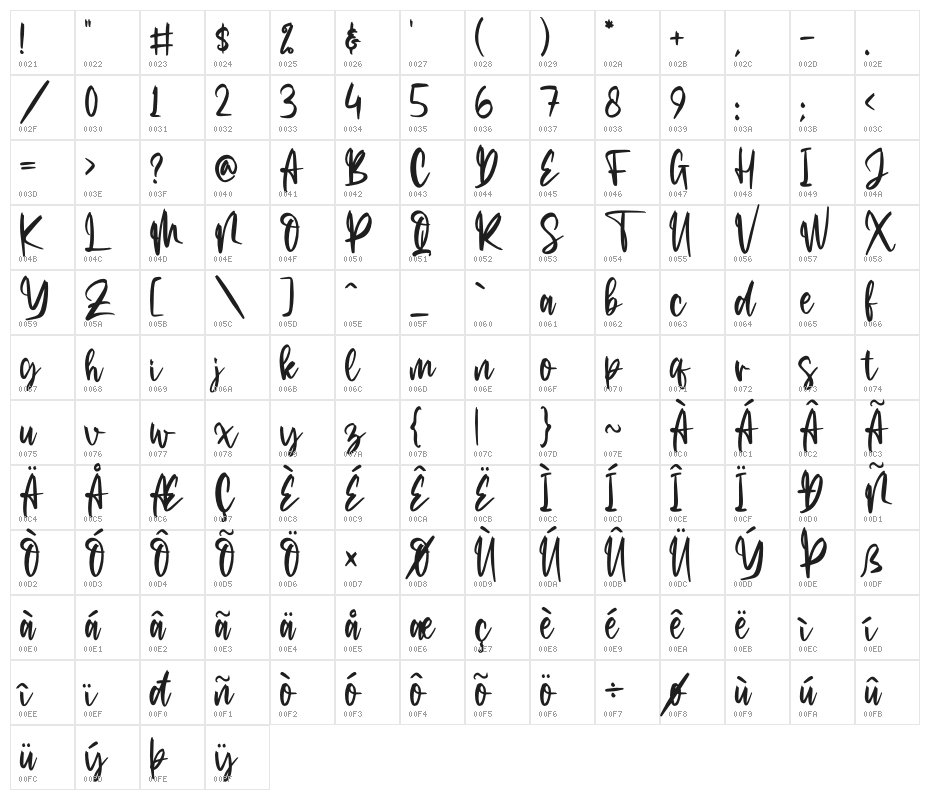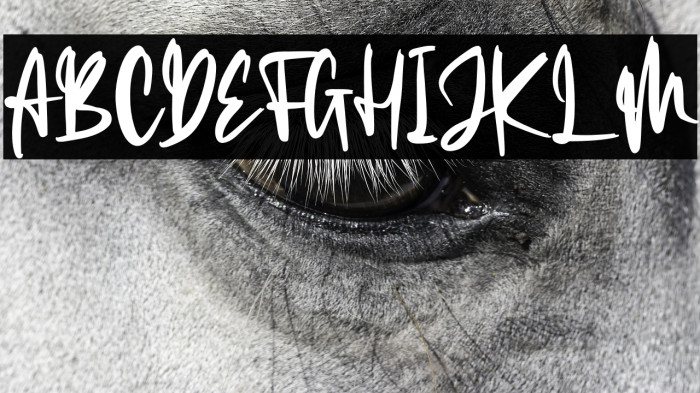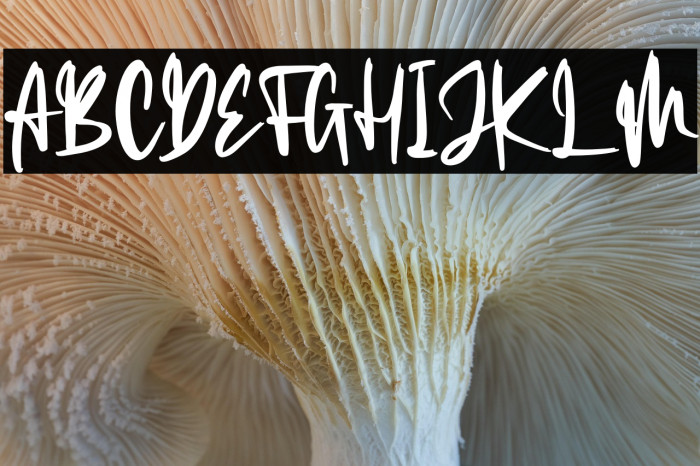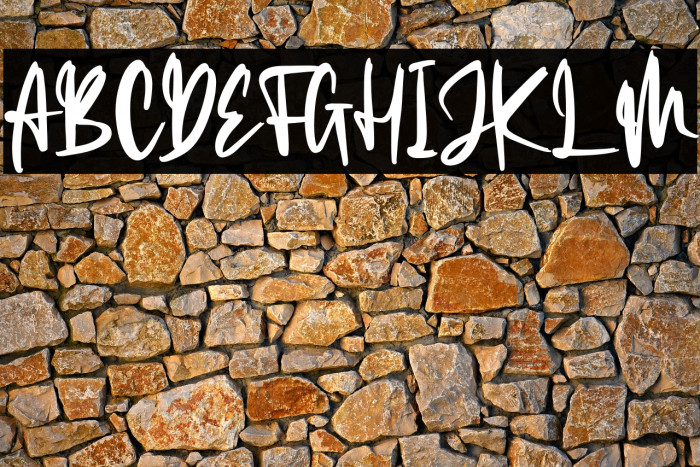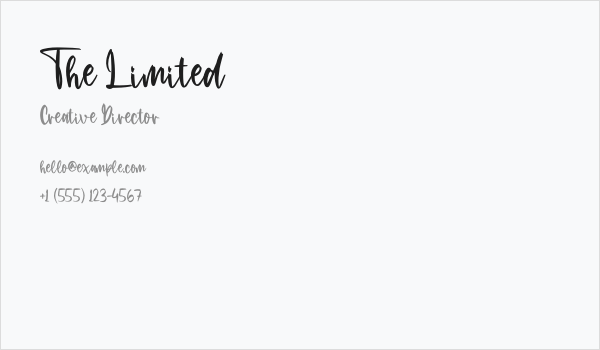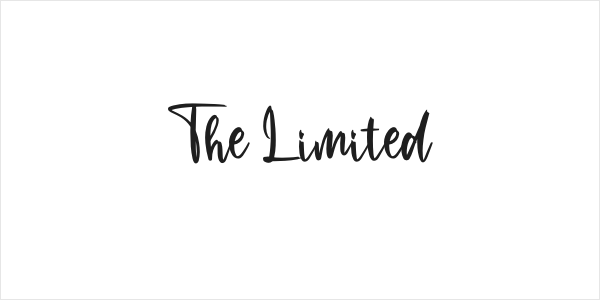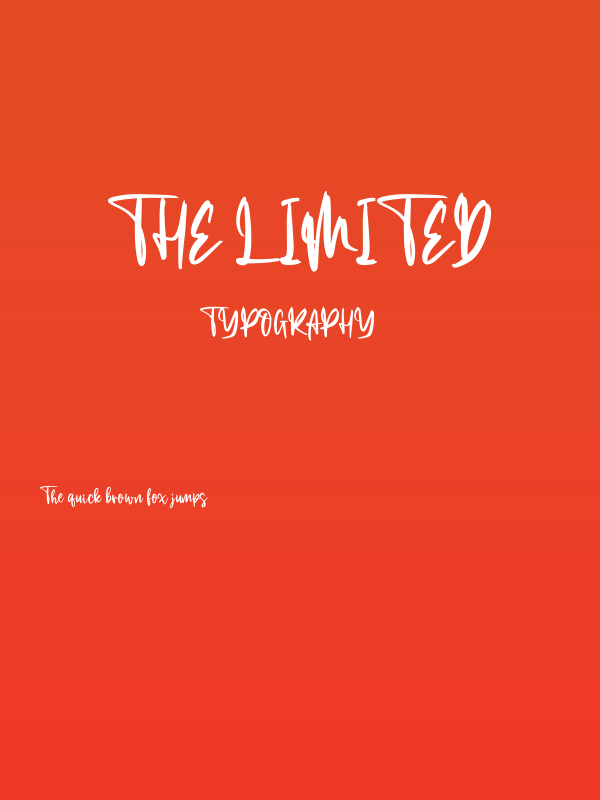
The Limited Font
The Limited Description
This font features a bold, expressive style with a handwritten appearance. The letters are fluid and dynamic, with varying stroke widths that give it a lively and energetic feel. The uppercase and lowercase letters maintain a consistent style, with some playful variations in the curves and loops. The numbers and special characters are equally expressive, fitting seamlessly with the overall design. This font is perfect for projects that require a personal touch, such as invitations, greeting cards, or branding materials. Its bold strokes and unique character make it stand out, adding a creative flair to any text.
| Proposed Projects | Ideal for invitations, greeting cards, branding, and creative projects. |